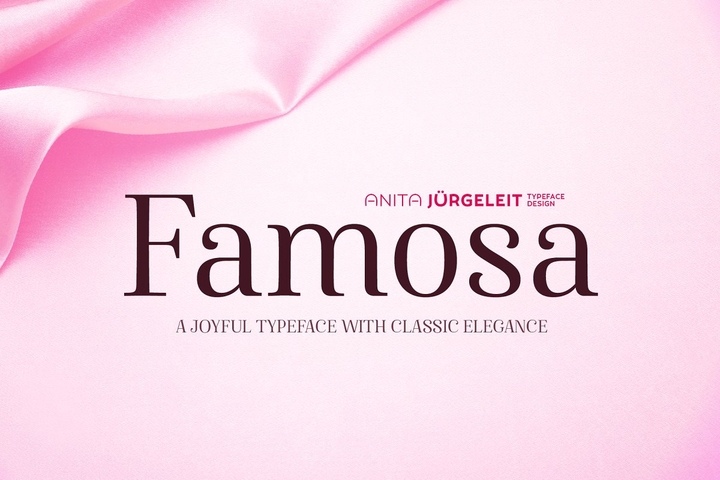
Famosa Font
Famosa Font is perfect for celebrity branding, glamorous logos, fashion campaigns, entertainment industry, red carpet events, luxury advertising, prestige packaging, star-studded promotions, award ceremonies, and prestigious visual communications. This distinctive typeface excels in both digital and print applications requiring star quality.
Famosa Font is exciting because it captures the glamorous essence of celebrity culture with elegant letterforms that convey fame and prestige while maintaining excellent readability. Its star-quality character creates memorable brand experiences that resonate with audiences seeking glamour, success, and prestigious association.
The Famosa Font family includes regular, bold, light, italic, condensed, extended, and glamorous variants, providing designers with comprehensive typographic options for various design scenarios and celebrity communication requirements.
Famosa Font embodies the dazzling world of fame and celebrity culture, delivering exceptional typography that reflects the glamour and prestige associated with entertainment industry success and high-profile achievements. This sophisticated typeface draws inspiration from Hollywood glamour, red carpet events, and celebrity lifestyle to create letterforms that communicate stardom, prestige, and aspirational appeal. The font's celebrity character makes it particularly valuable for entertainment agencies, luxury brands, fashion houses, and prestige services that require typography capable of conveying fame, exclusivity, and high-profile association.
The glamorous construction of Famosa Font demonstrates masterful understanding of celebrity design principles, with elegant details and sophisticated proportions that create prestigious visual compositions reminiscent of Hollywood signage and luxury branding. This star-quality approach ensures excellent performance across diverse applications, from entertainment marketing to luxury campaigns where celebrity appeal enhances brand desirability. The font's prestigious qualities make it especially effective for brands in entertainment, luxury fashion, high-end hospitality, and celebrity services that celebrate success and glamorous lifestyle.
Creative professionals working with Famosa Font Free Download will appreciate the typeface's versatility across glamorous and contemporary design challenges. Its celebrity styling bridges Hollywood tradition with modern luxury aesthetics, making it suitable for established entertainment brands and innovative luxury companies requiring distinctive, memorable typography with star appeal. The font's prestigious presence makes it particularly effective for award shows, luxury events, celebrity endorsements, and high-profile businesses that must communicate success through glamorous, aspirational visual design.
Whether developing celebrity brand identities, creating glamorous communications, or designing prestige marketing materials, Famosa Font provides the star quality needed for communications that inspire aspiration and convey prestigious value while maintaining sophisticated appeal and achieving distinguished market positioning across all celebrity and luxury channels.